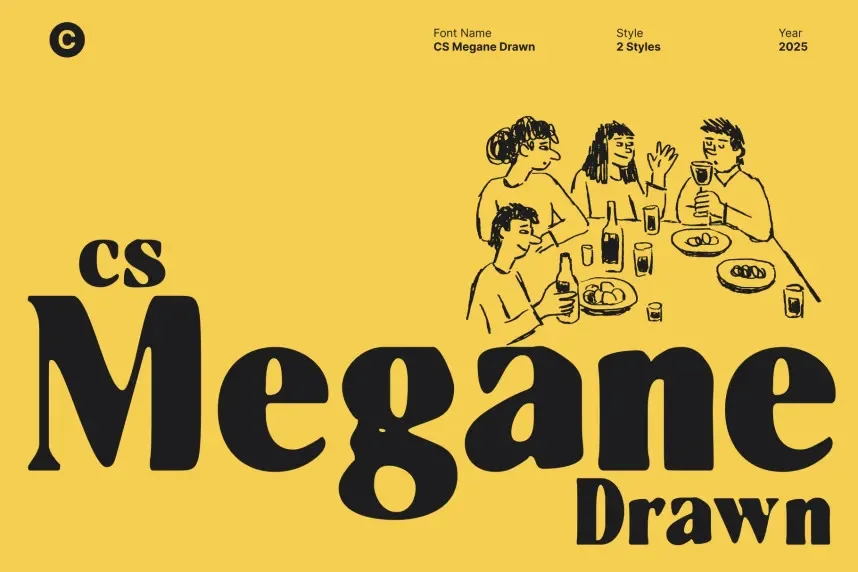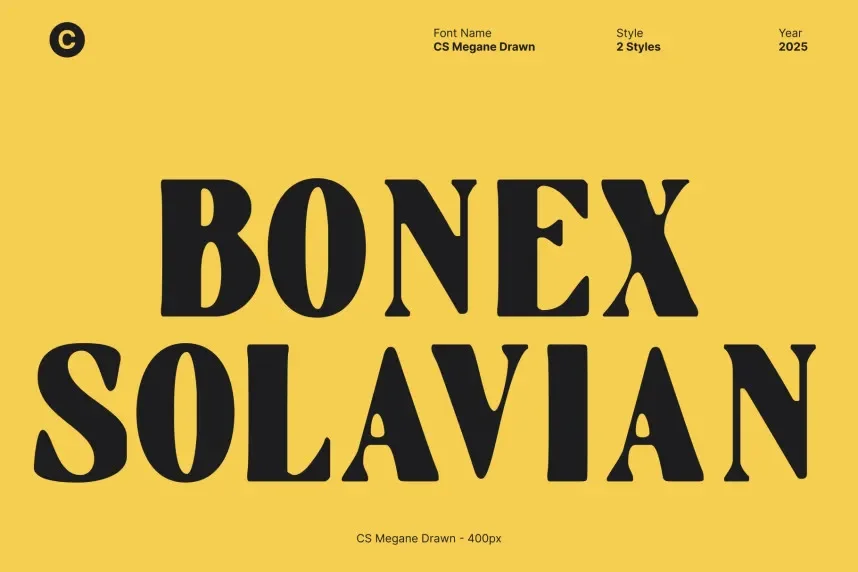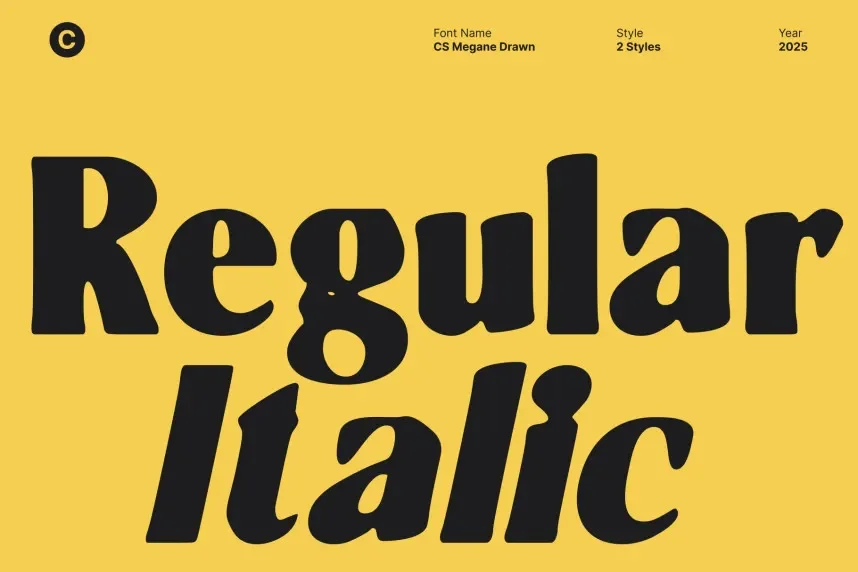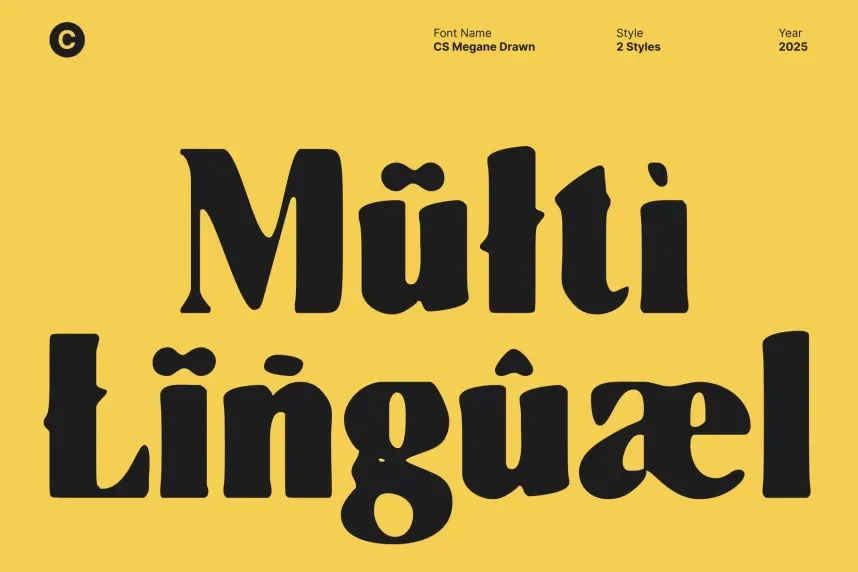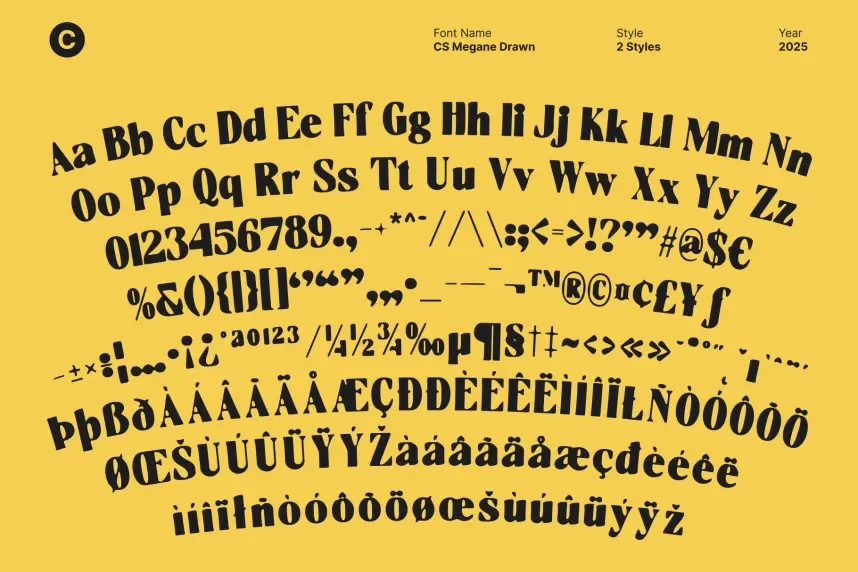
CS Megane Drawn Font addresses the need for a distinctive, retro-inspired font that works well in both print and digital formats. Designers use it for projects requiring a vintage touch without sacrificing clarity.
CS Megane is a display font with rough, uneven edges and hand-drawn details. The letterforms have a strong retro vibe, making it perfect for designs that need an old-school, authentic feel.